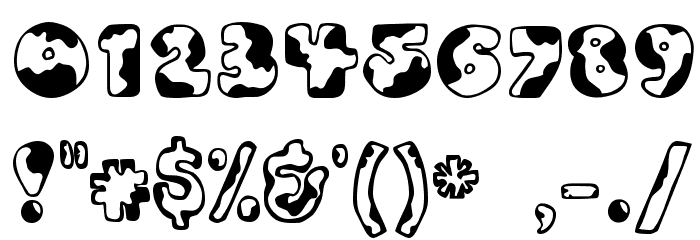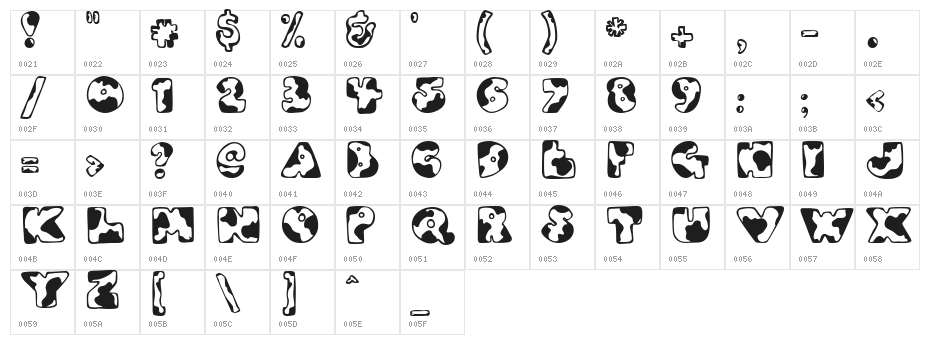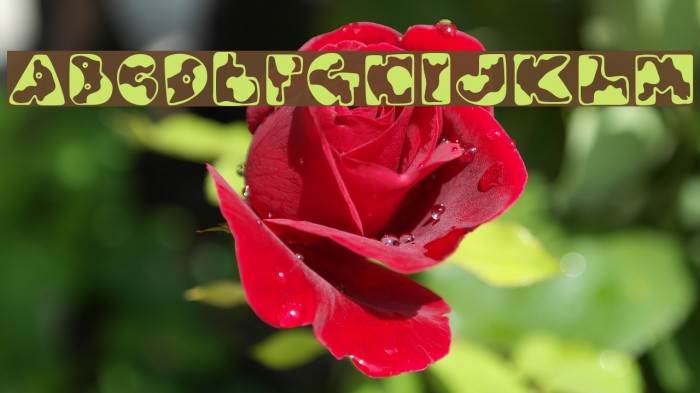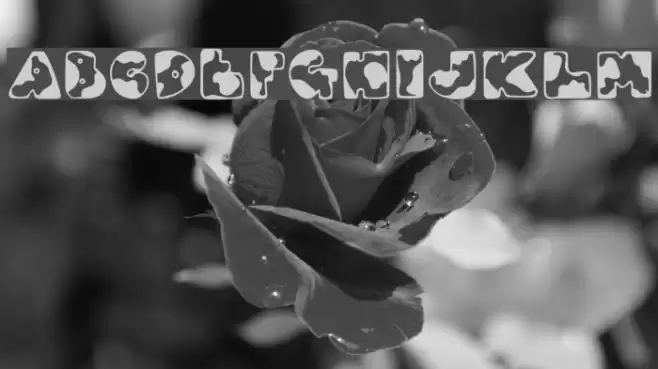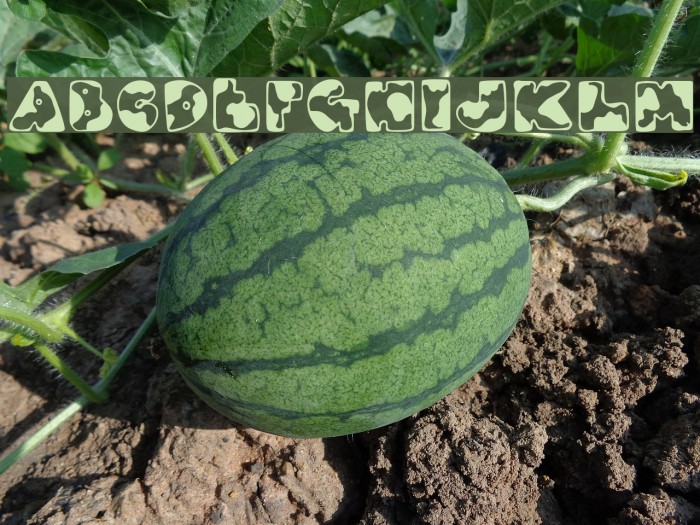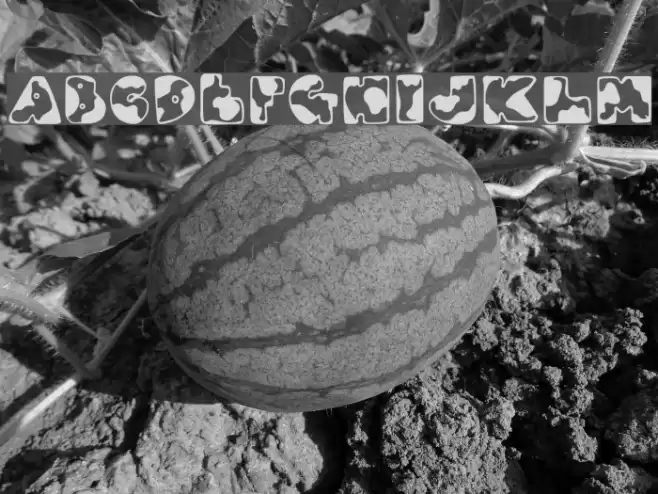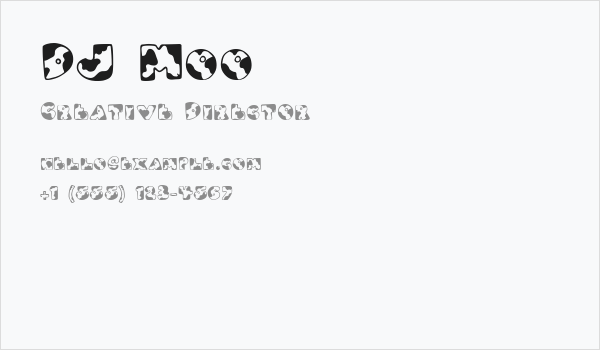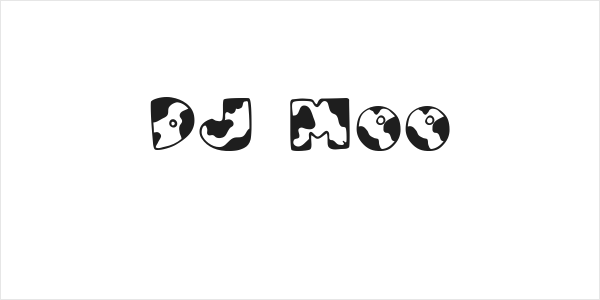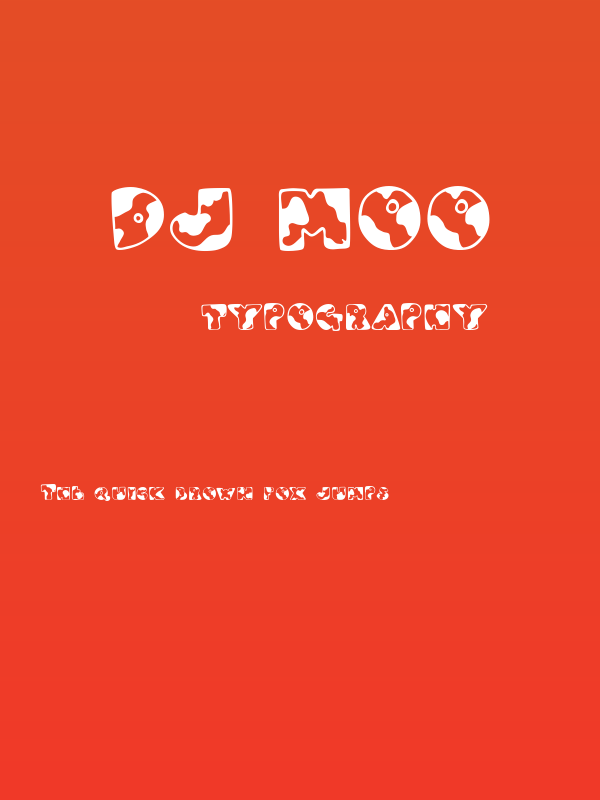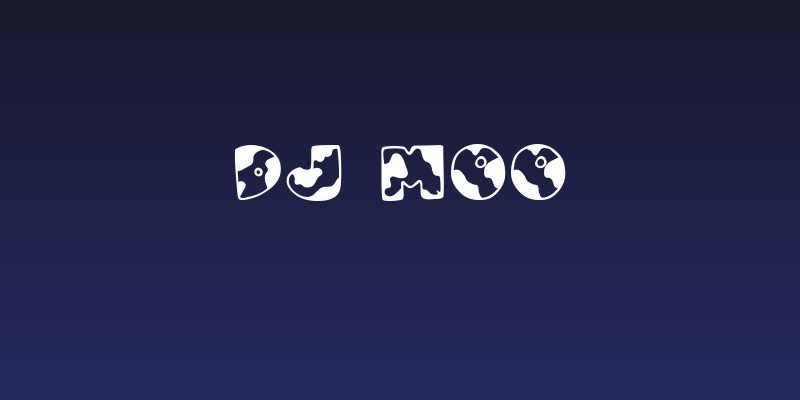
DJ Moo Font
DJ Moo Description
This playful and bold font features a unique cow pattern design within each character, creating a whimsical and eye-catching appearance. The letters are rounded and chunky, with a consistent black and white color scheme that mimics the spots of a cow. This decorative style is both fun and engaging, making it ideal for projects that require a touch of humor or creativity. The font maintains a consistent weight throughout, with medium contrast in stroke thickness. Its distinctive style is sure to capture attention and add a lively element to any design.
| Proposed Projects | Ideal for children's books, playful branding, themed party invitations, or any project needing a whimsical touch. |